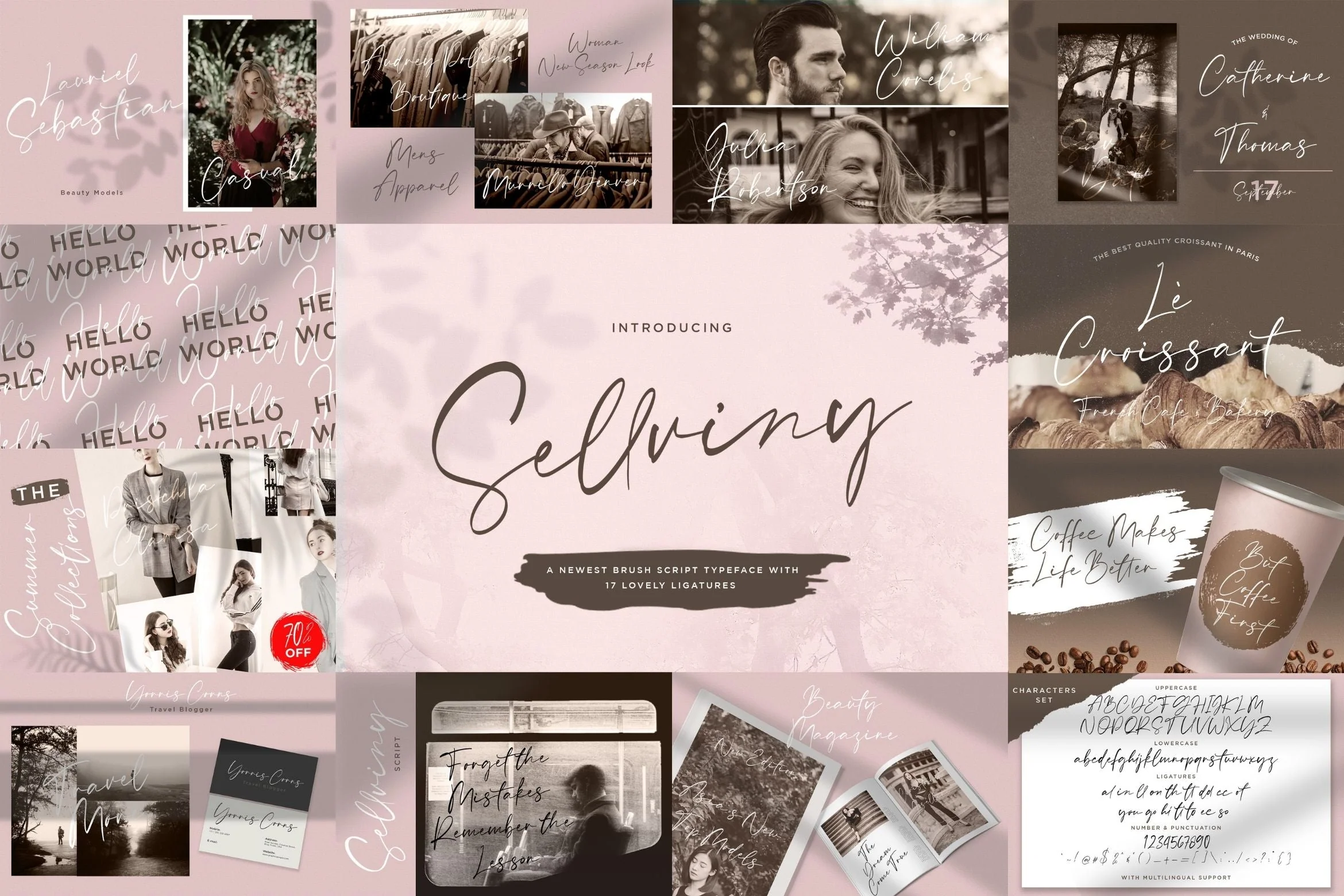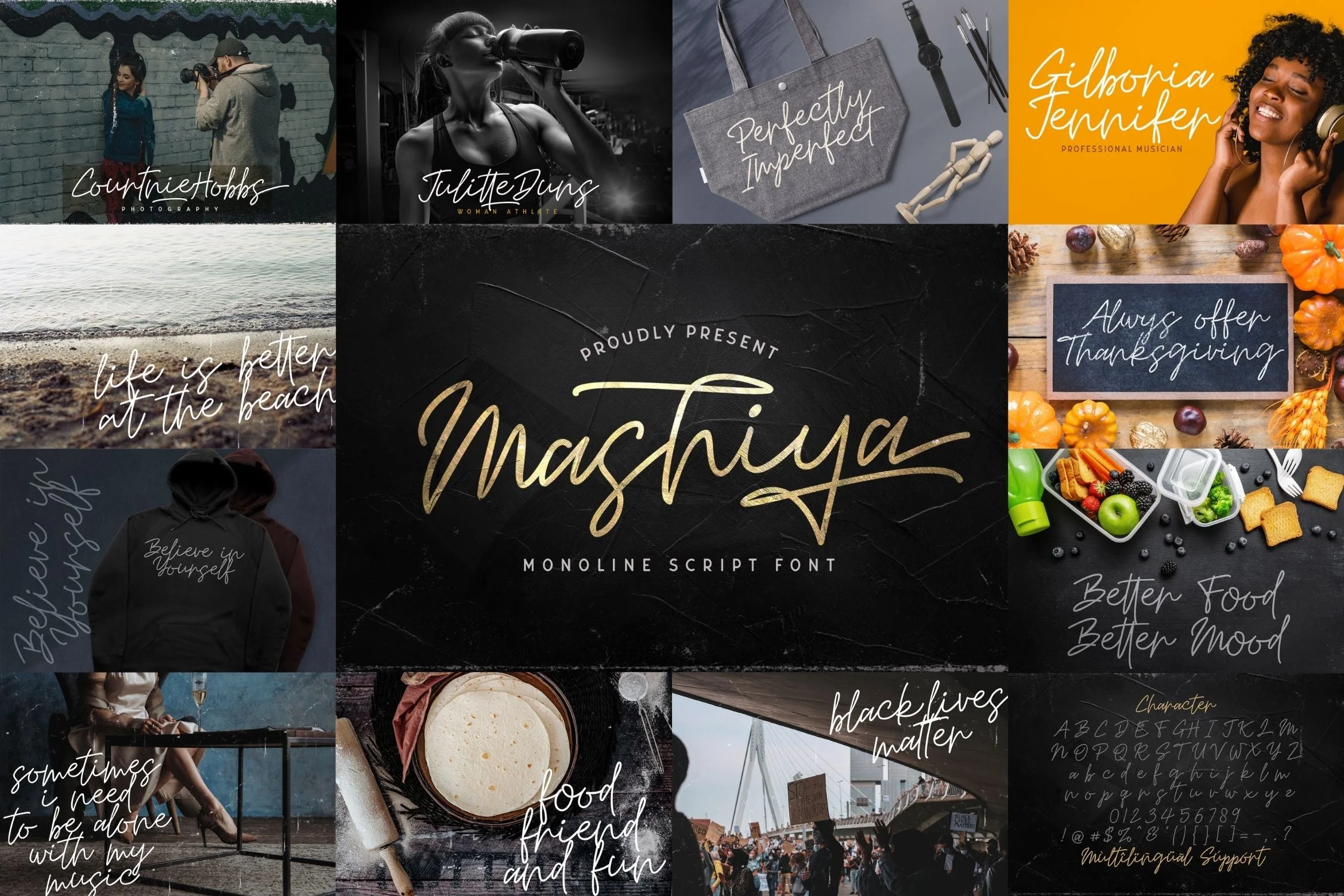
Handwritten Font Bundle Vol 15 is a delicate, elegant and flowing handwritten font. This font bundle contains 8 high quality handwritting script font, it will look simply magical in a wide range of design projects, and also that will look particularly adept when used in logos, branding, packaging design, and much more. It has beautiful and well balanced characters and as a result, it matches a wide pool of designs. Add it to your most creative ideas and notice how it makes them come alive!
1. Mashiya
2. Baster Monky
3. Pejuang Cinta
4. Vuttaline
5. Mathulesy
6. Walentiny
7. The Banten
8. Sellviny